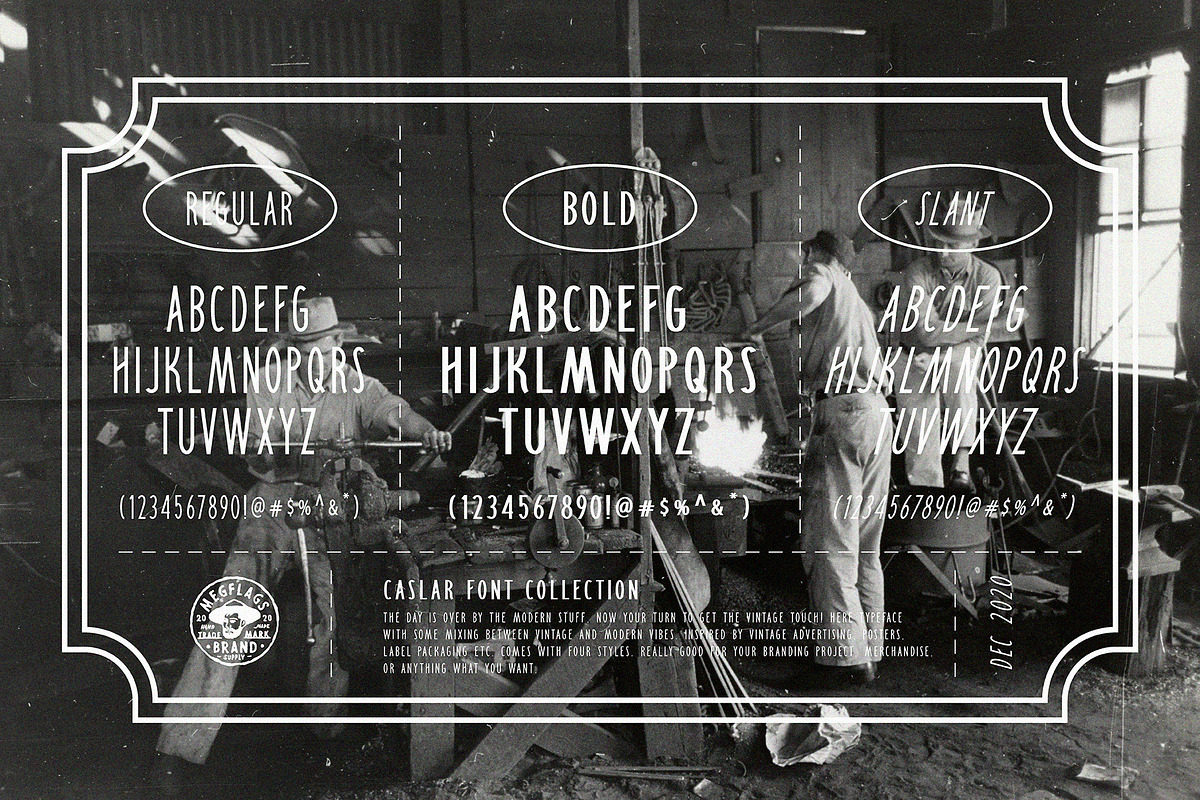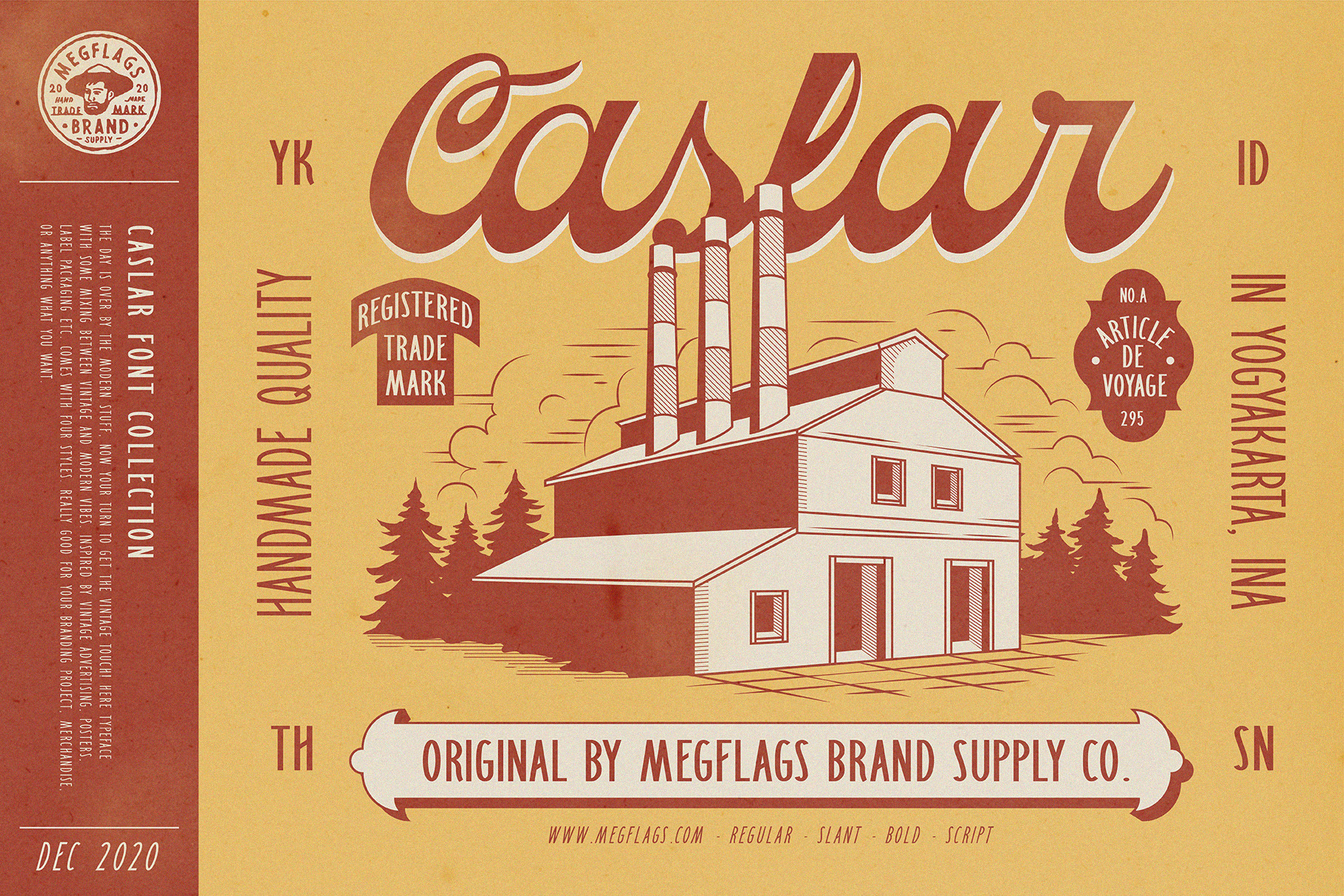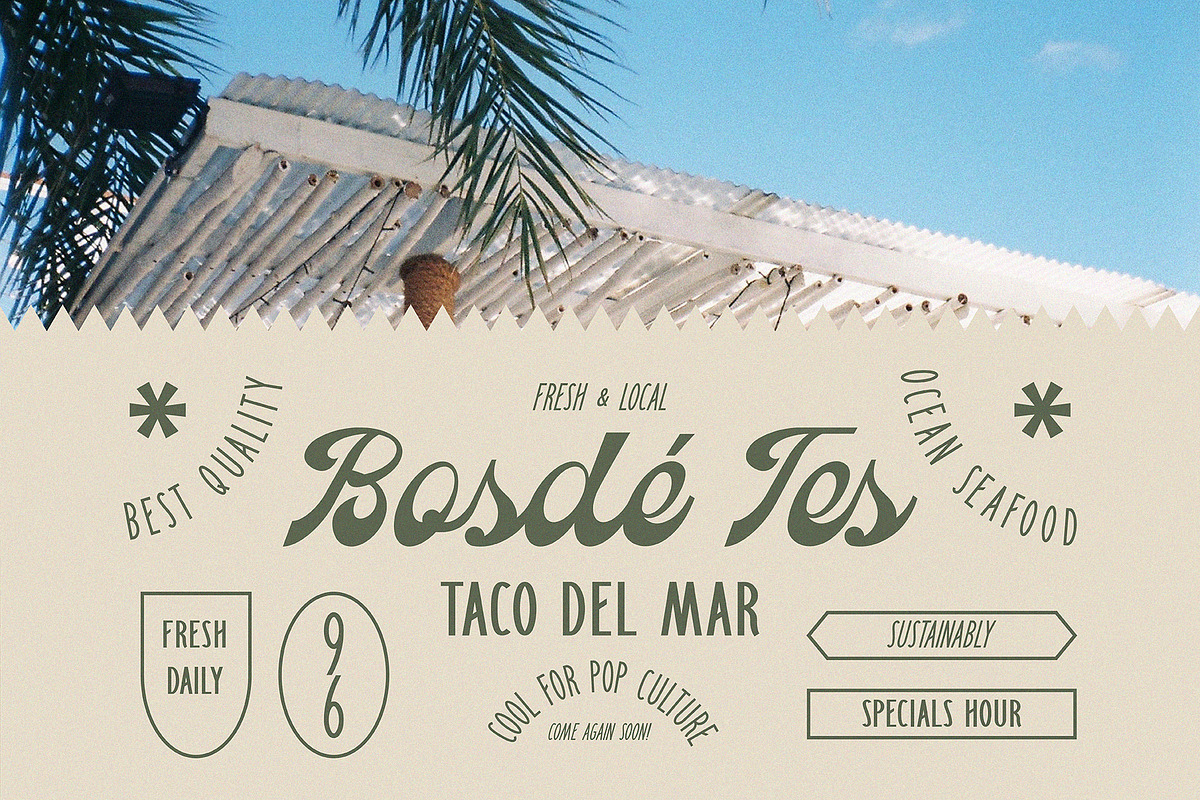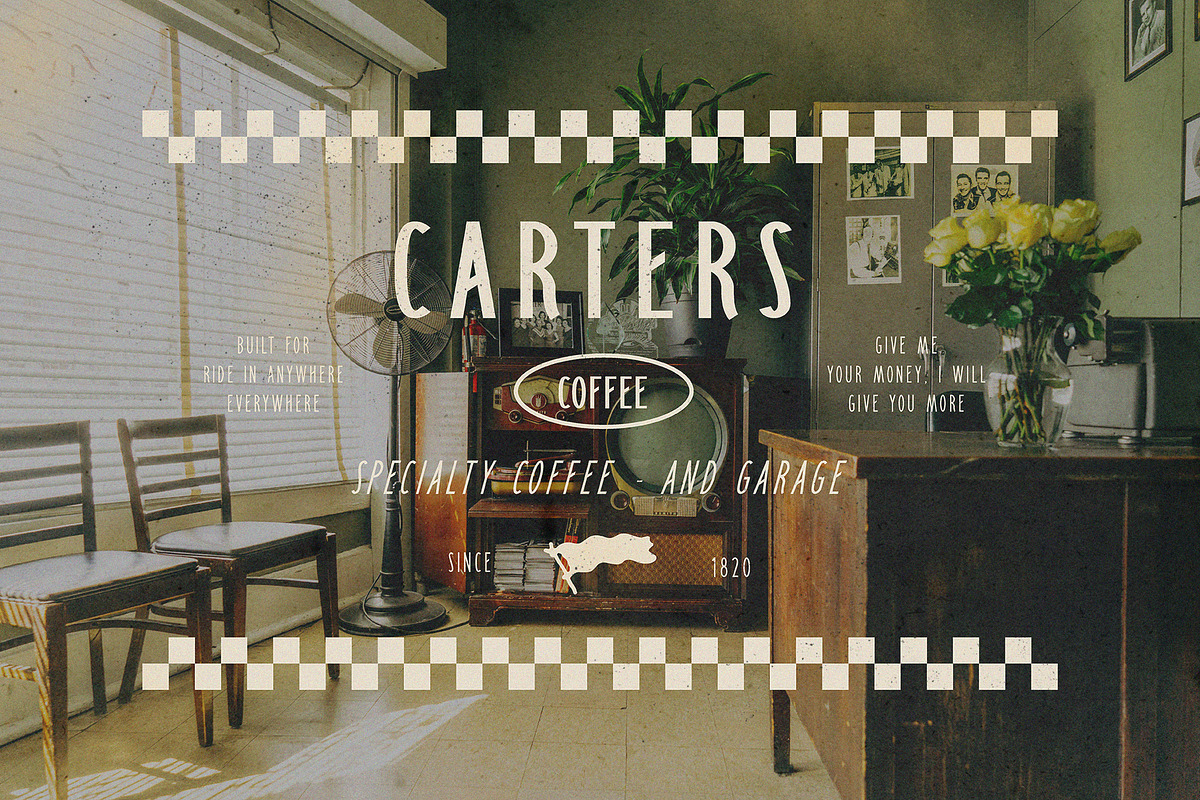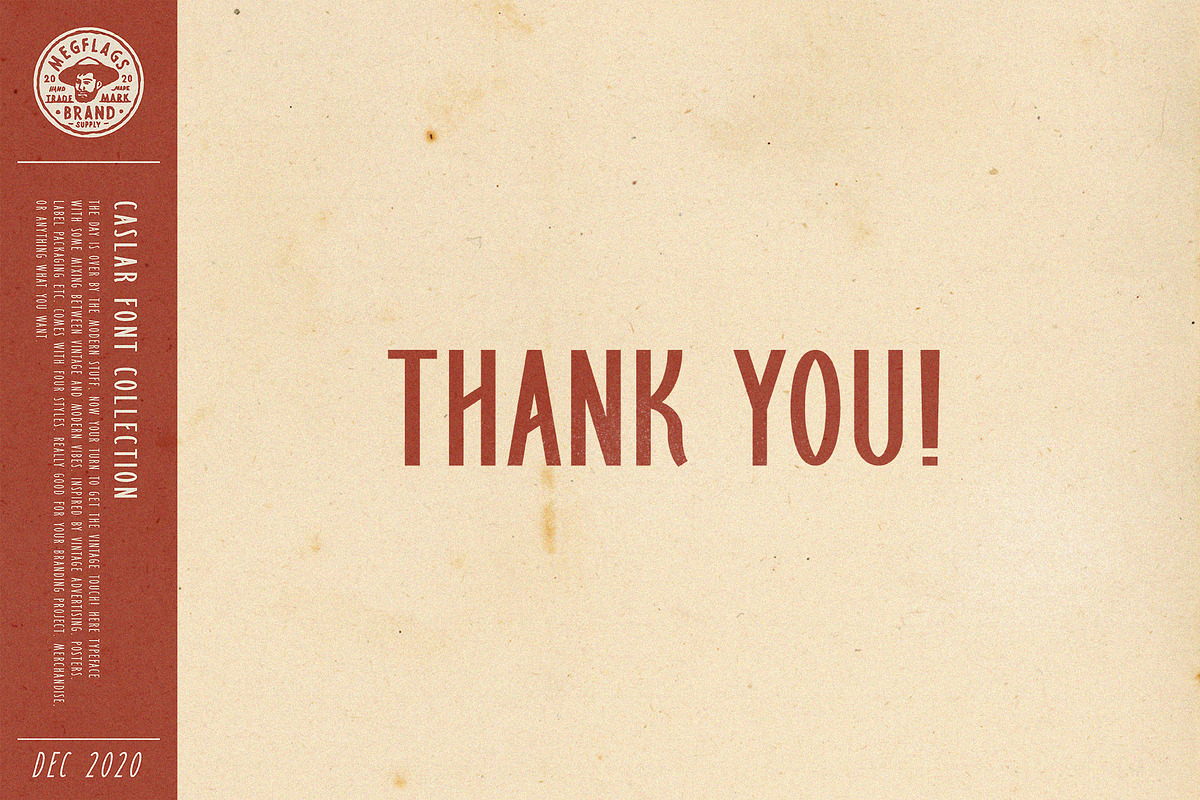
Caslar Font Collection
CASLAR
The day is over by the modern stuff, now your turn to get the vintage touch! Here typeface with some mixing between vintage and modern vibes. Inspired by vintage advertising, posters, label packaging etc. Comes with four styles. Really good for your branding project, merchandise, or anything what you want.